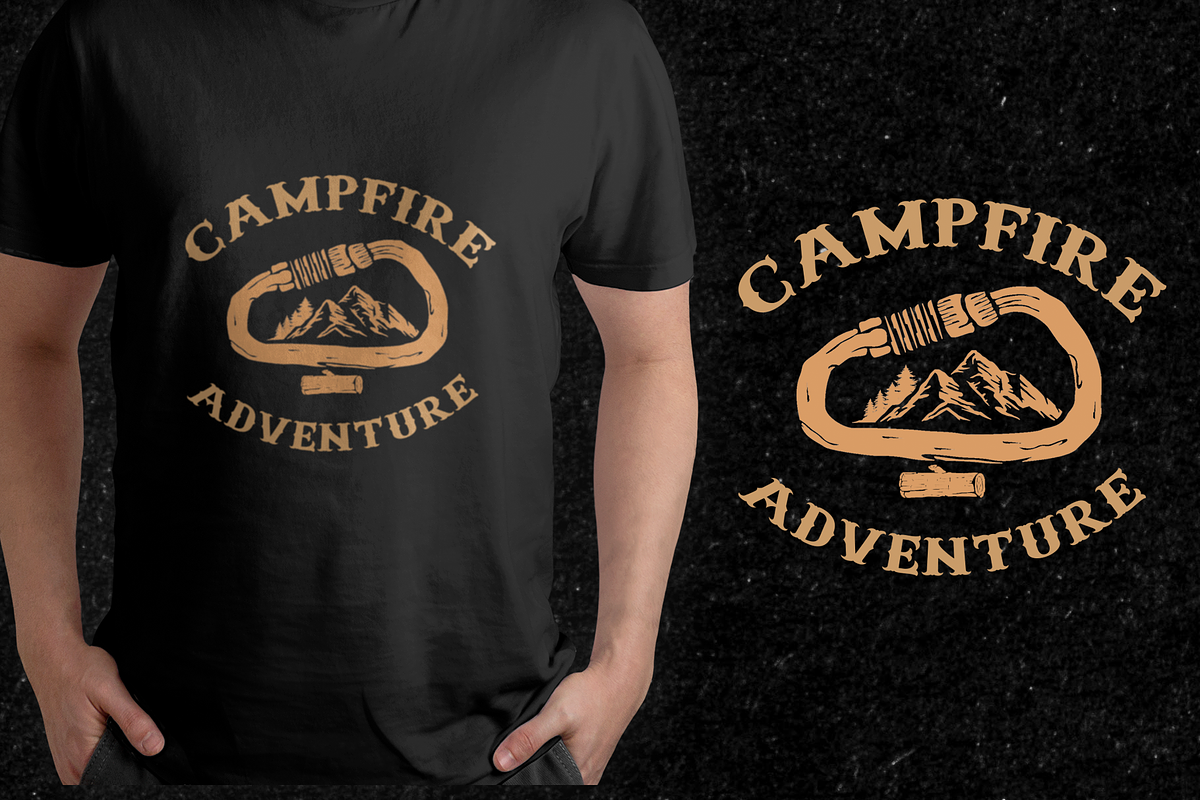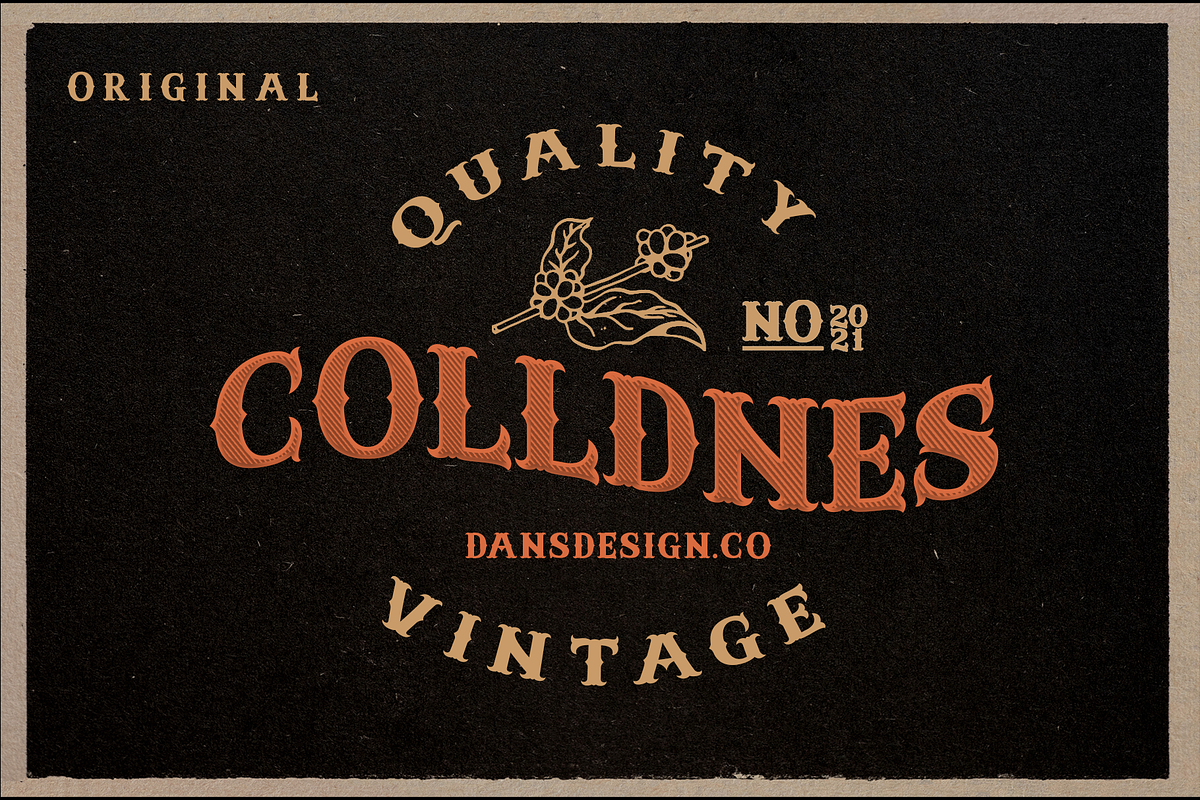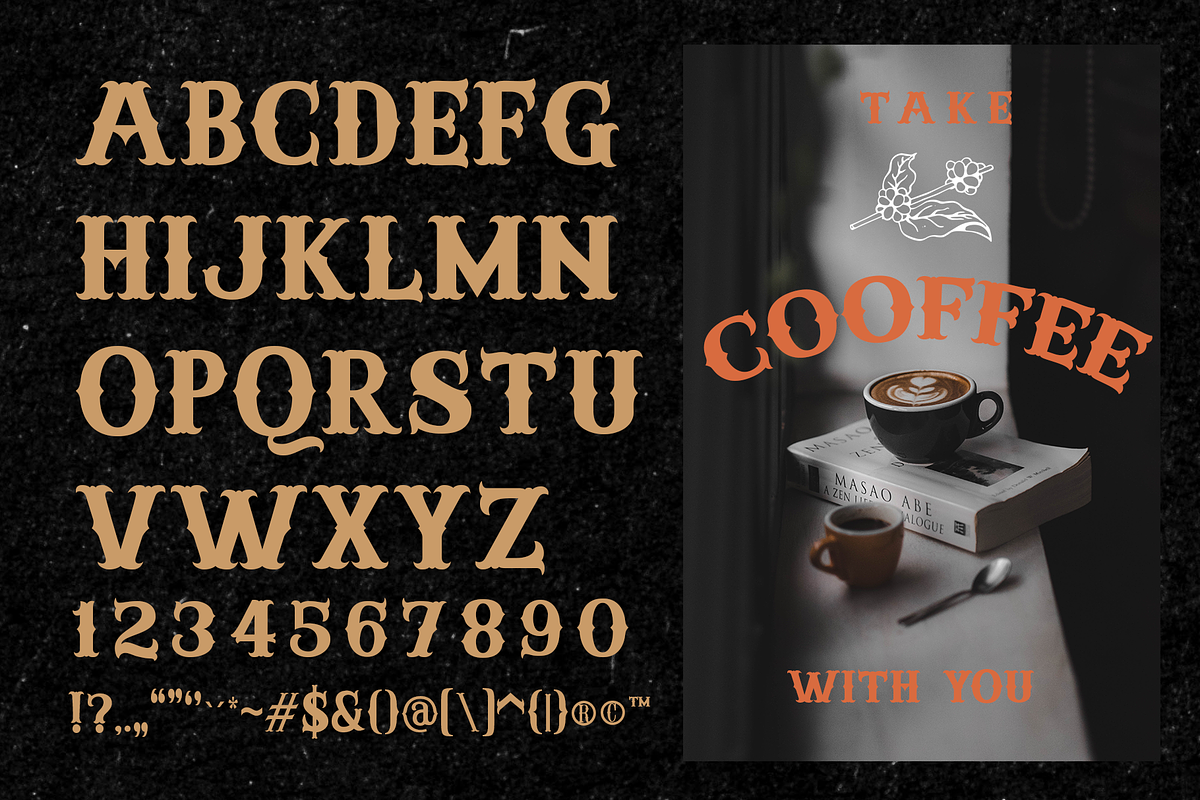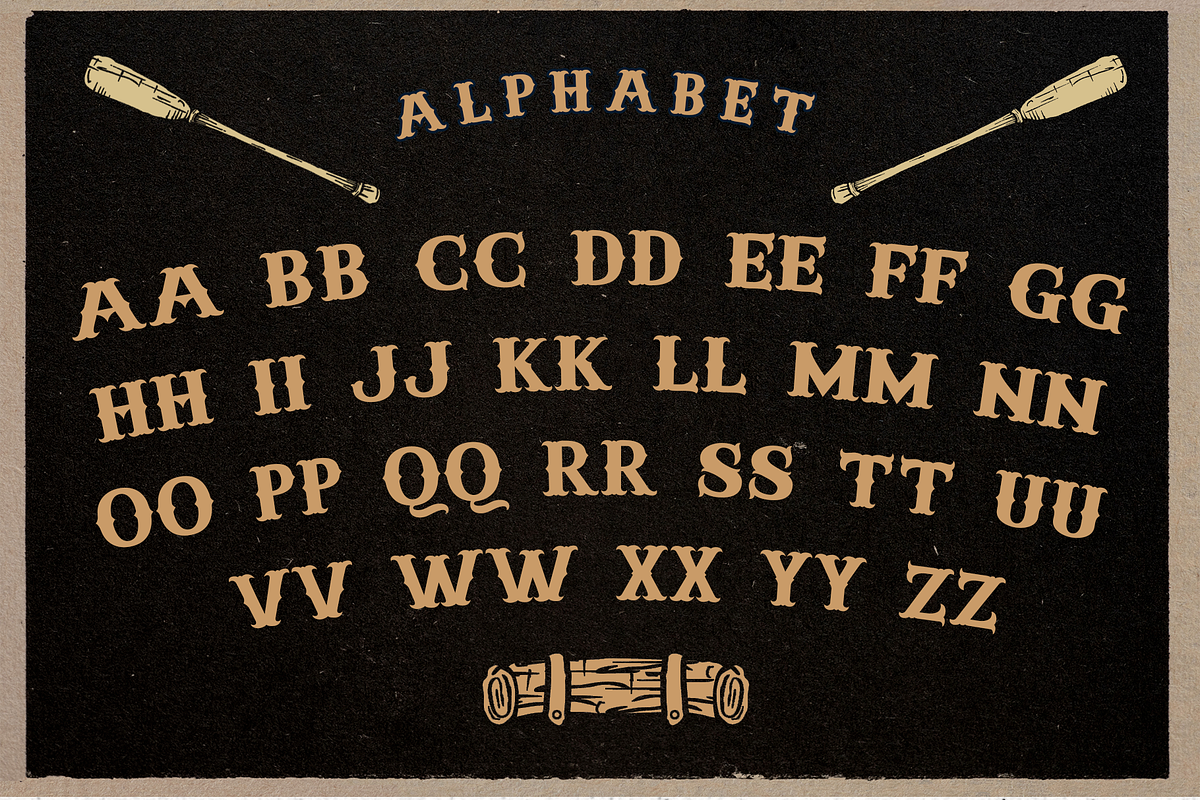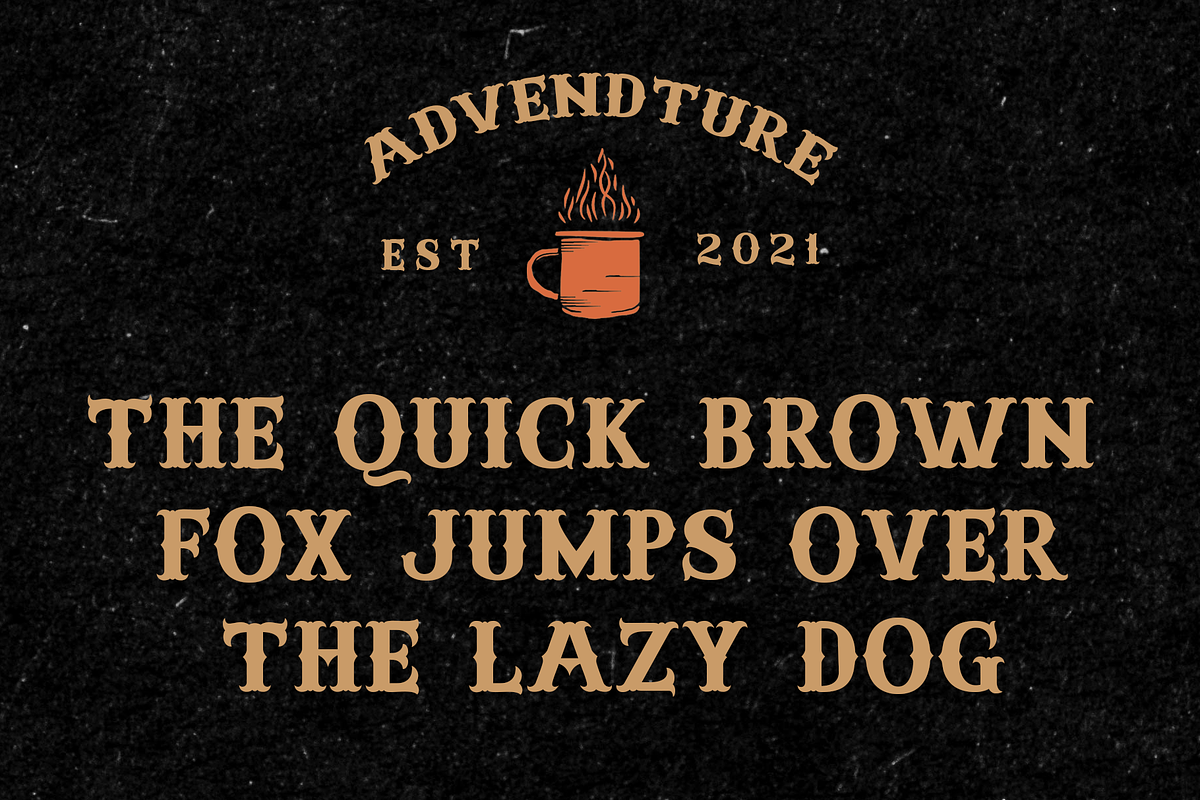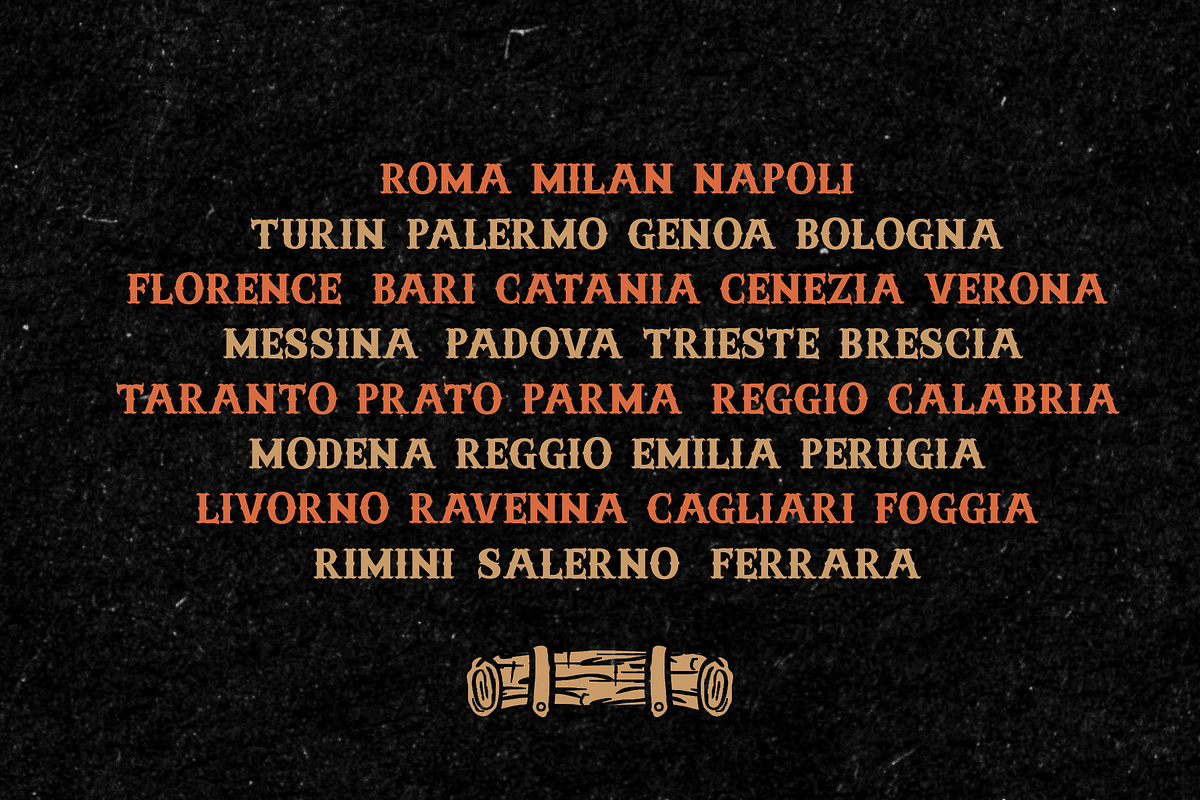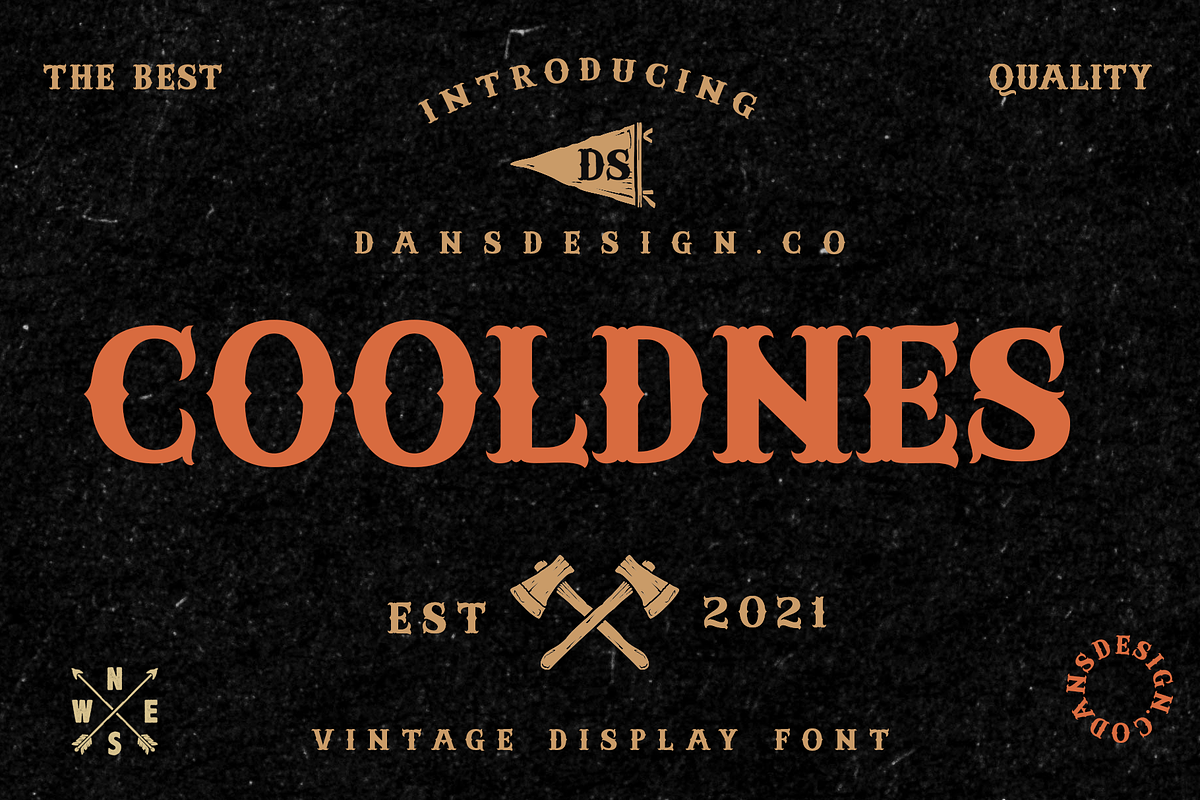
COOLDNES
COOLDNES Vintage blackletter font. Fall for its ravishing style and use it to create gorgeous wedding invitations, beautiful stationary art, eye-catching social media posts, and much more!